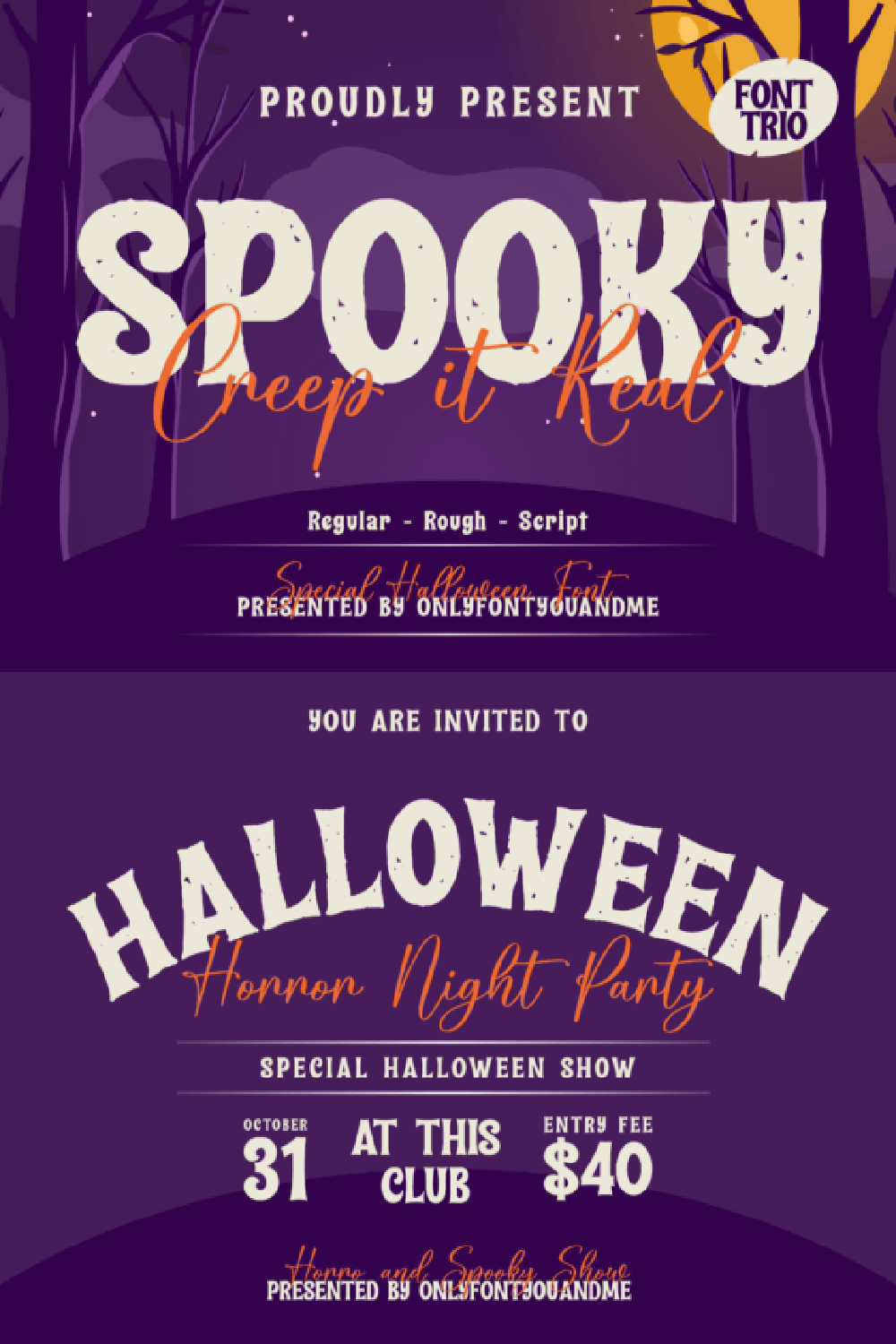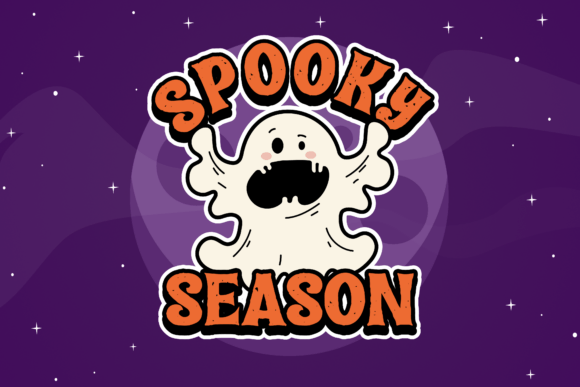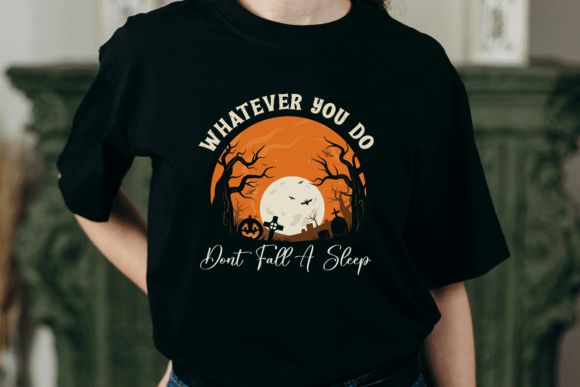
Spooky Spirit Font
About the Spooky Spirit Font
Get ready to be inspired by Spooky Spirit Font, a fresh and dynamic typeface for modern creators. Unveiling the “Spooky Spirit” font trio, a beguiling embodiment of Halloween enchantment! This font family intricately molds bulky, rough-edged serif characters to form a genuinely “Spooky” layout, laced with exaggerated, irregular lines for a captivatingly uncanny appeal.
Complementing this is the cursive element, a polished and suave script that adds a surprise sprinkle of sophistication to the mix. As a harmonious trio, they stir up a fantastical aura, gracefully juggling between joviality and chill. This splendid blend is perfect for crafting a haunting Halloween atmosphere that elicits shudders of joy and eerie fascination.